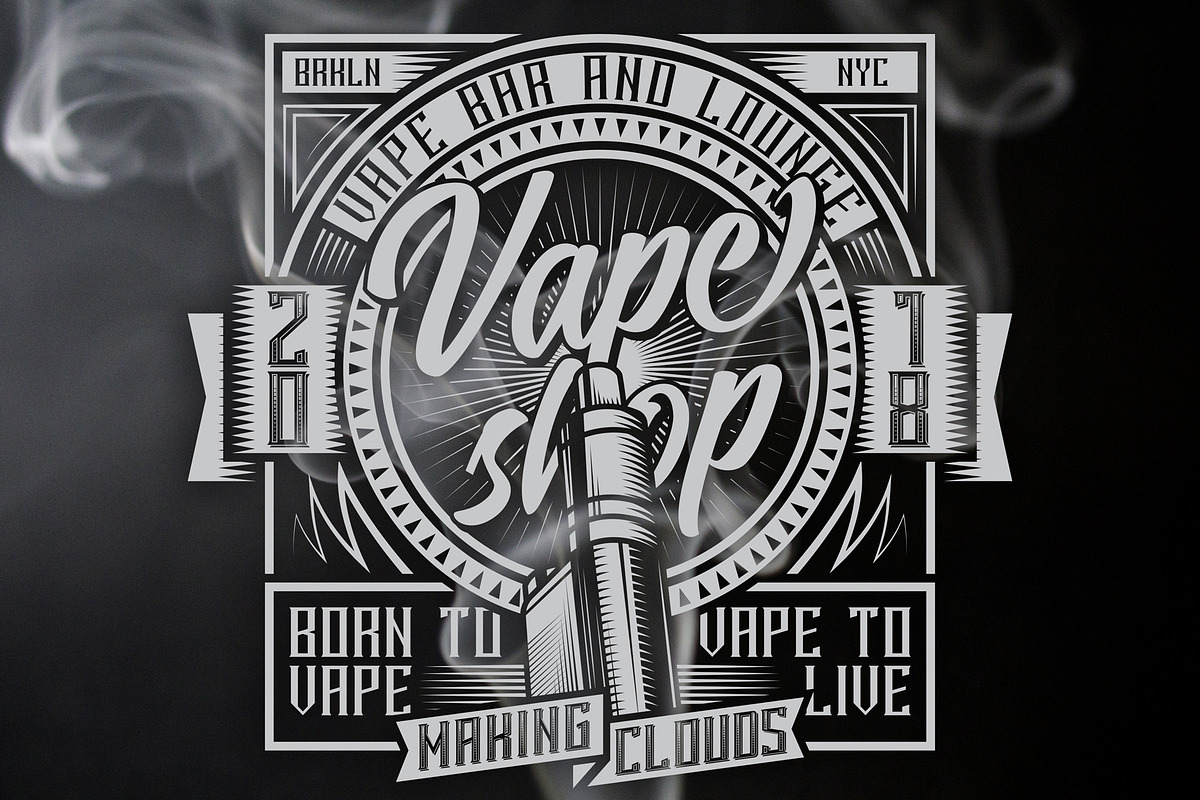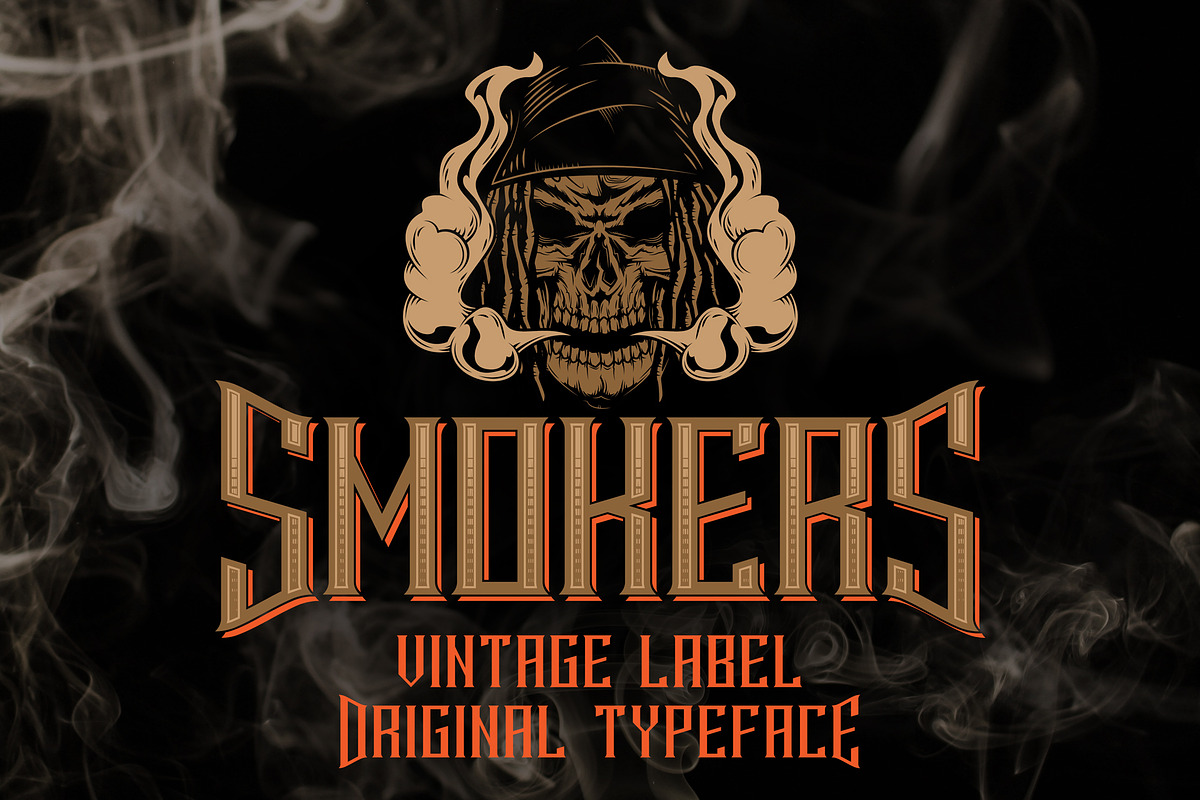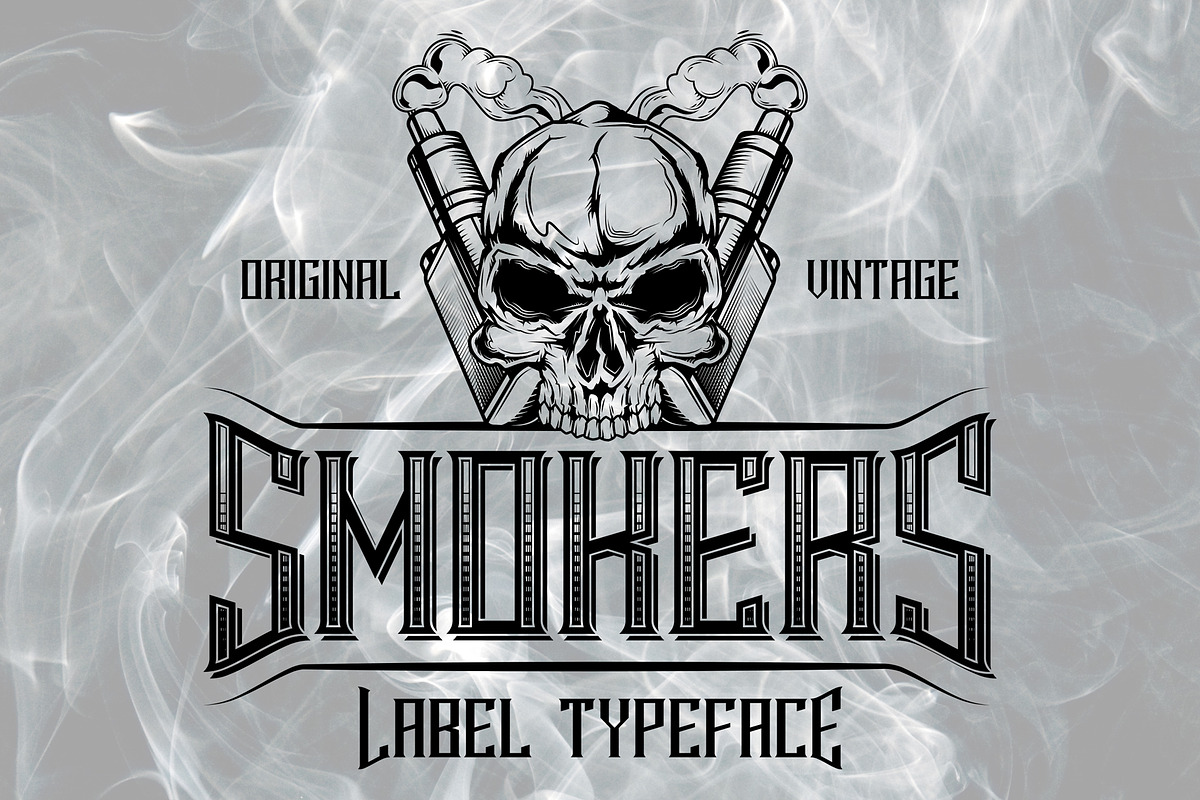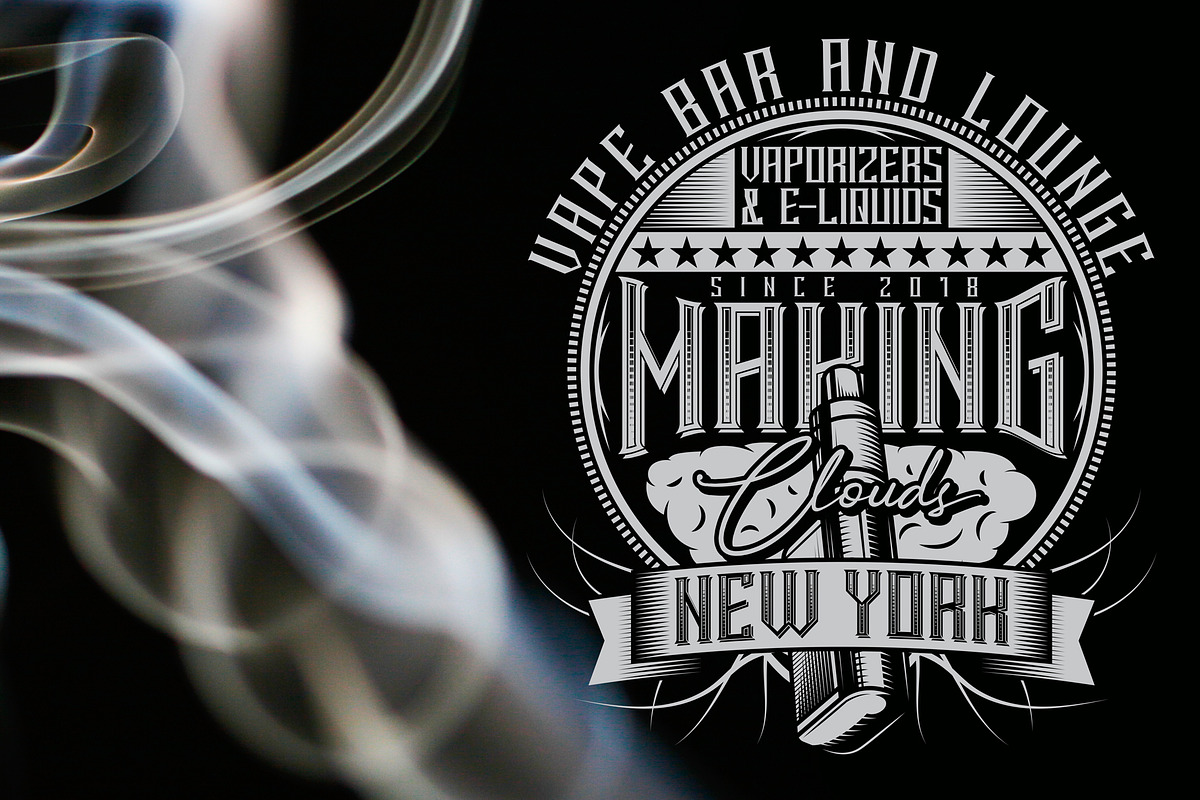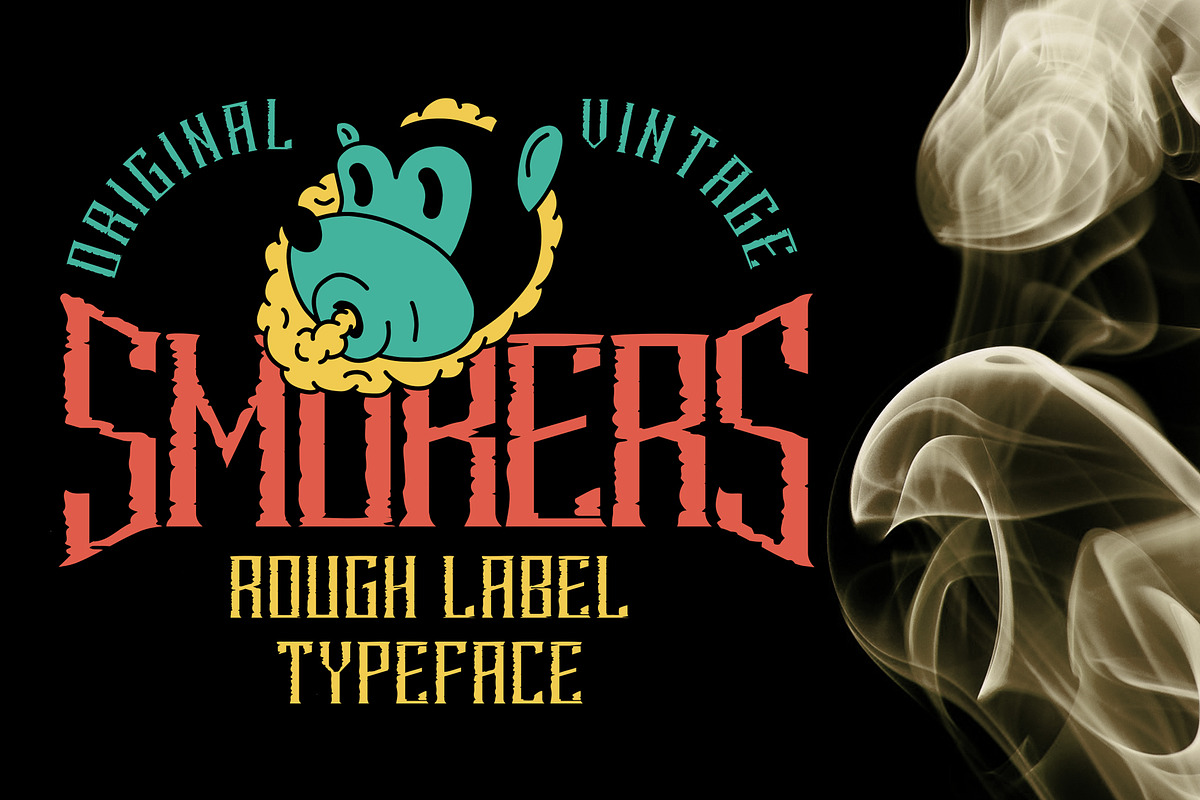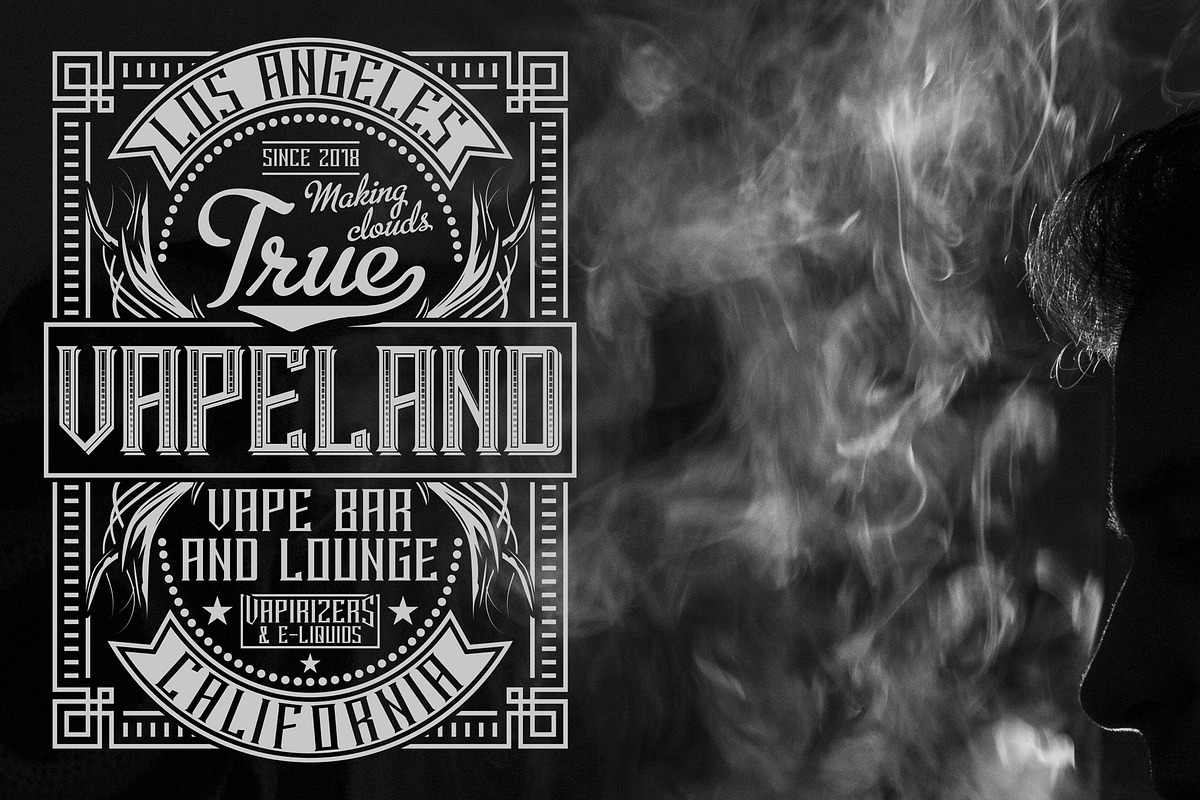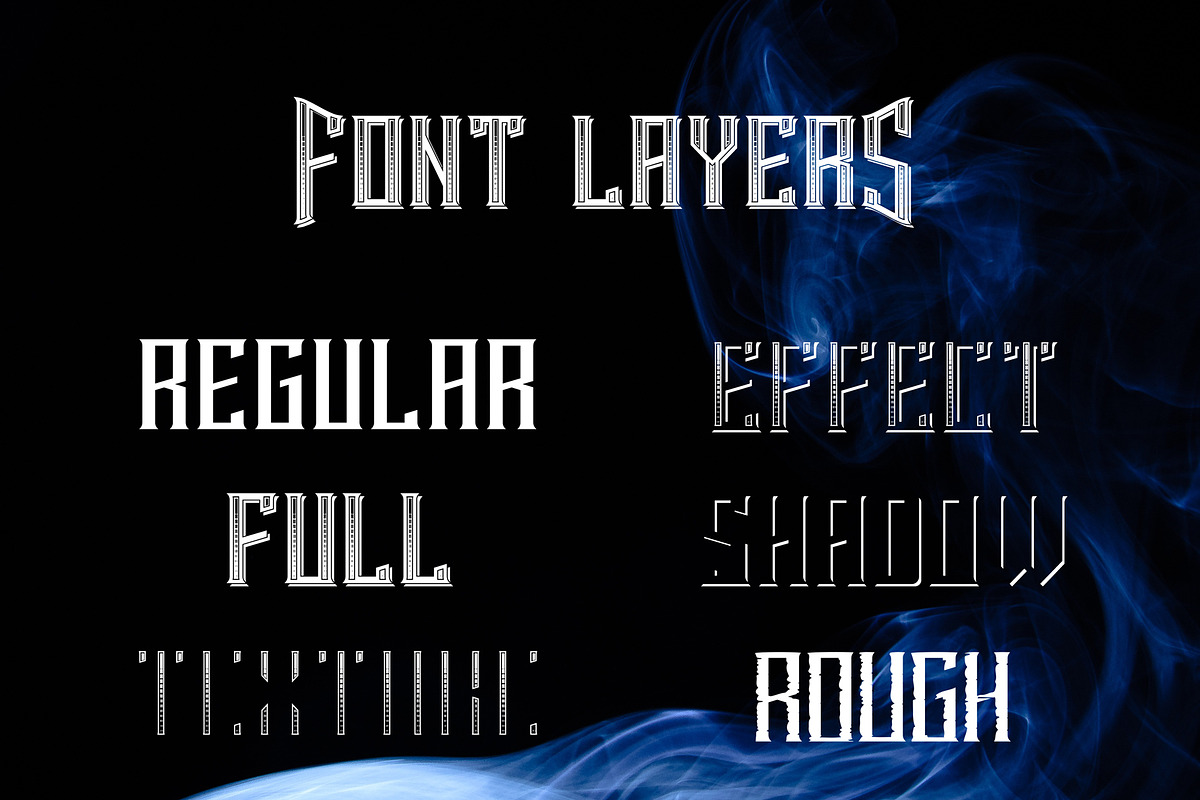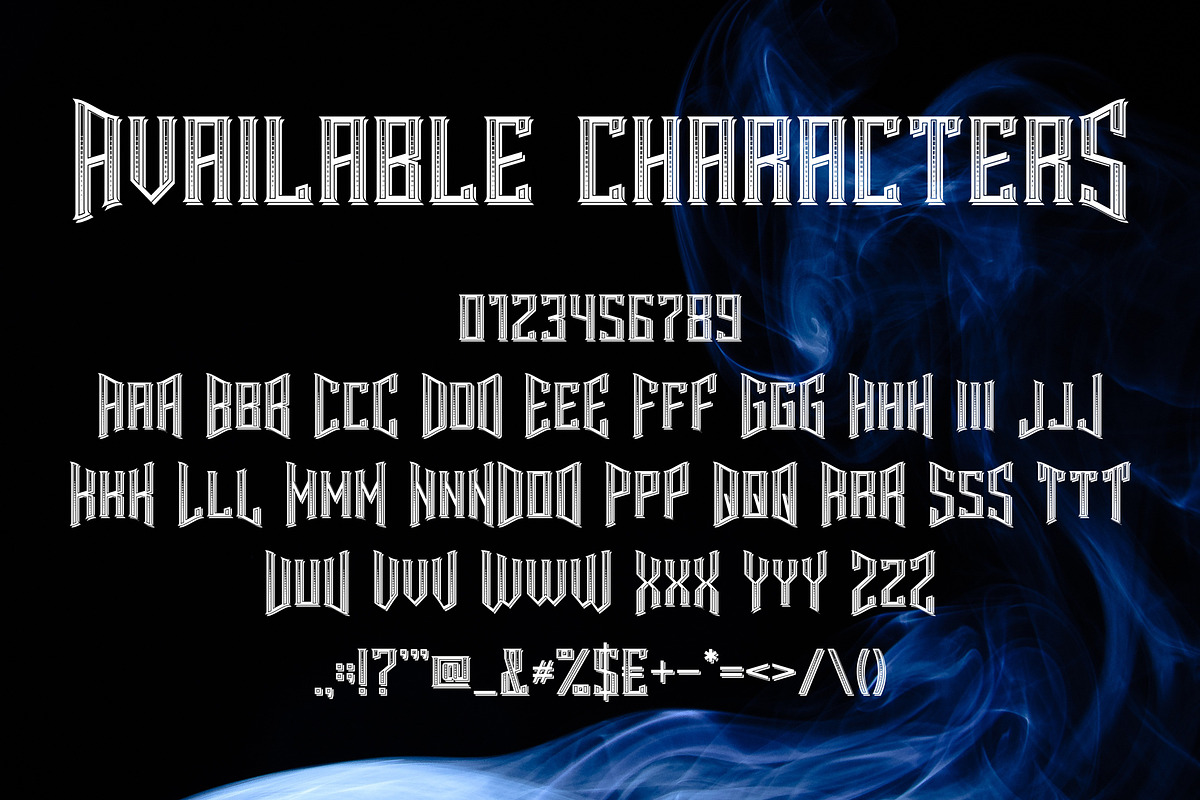
Smokers typeface
Introducing a vintage look layered label font named "Smokers".Typeface includes six styles (including effect styles), for sample look at 4th preview. This font will good viewed on any retro design like poster, t-shirt, label, logo etc.
For using effects layers:
Type your text in Regular.
Copy that and paste at the same position.
Change the style to Shadow or Texture.
Alternates in first letters - just type letter in caps. For alternates in last letters - just use alternates for small letters.